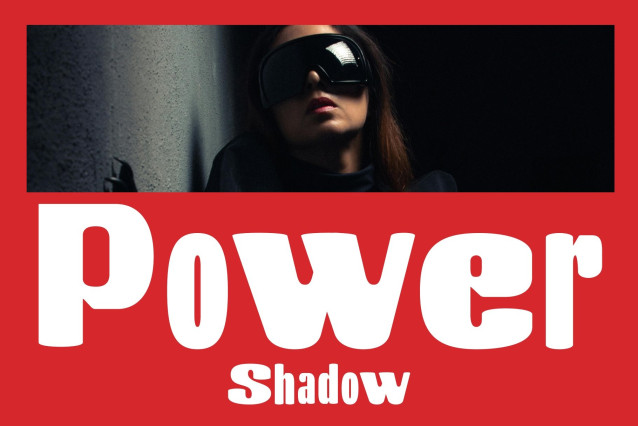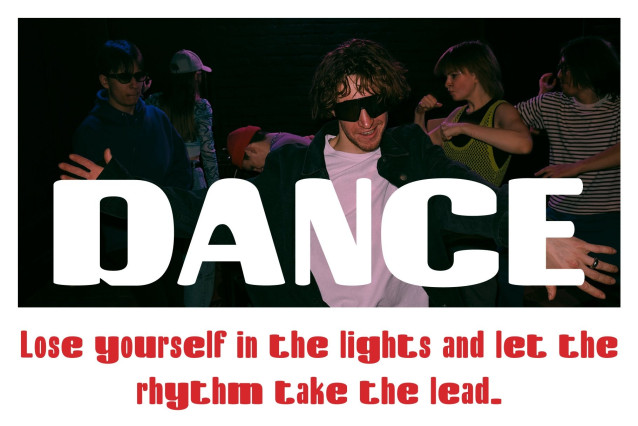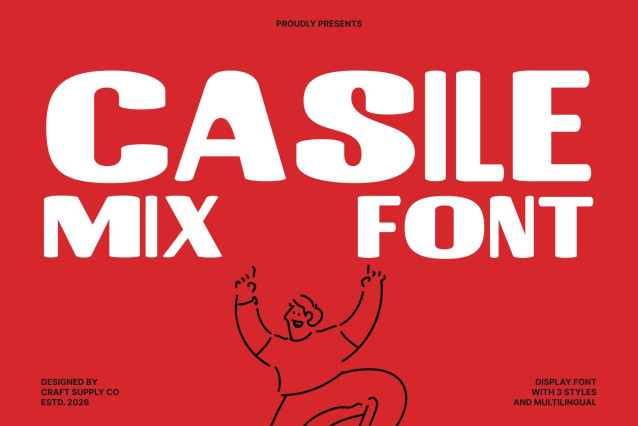
Casile Mix Font
Casile Mix – Bold Retro Sans Serif: Vintage Energy with Modern Expression
Retro Bold Sans with Mixed Style Character
This is a bold sans serif font that revives retro typography with a contemporary mixed-style approach. Built with thick strokes and confident shapes, this typeface captures the vibrant spirit of vintage design while keeping a modern and polished appearance. It delivers a striking visual voice that instantly energizes any composition.
A Hybrid Blend of Bold and Regular Letterforms
The defining feature of this font is its creative fusion of bold and regular characters. This hybrid structure introduces contrast, rhythm, and visual movement, transforming simple text into a dynamic design element. The mix of weights gives typography a lively personality, allowing headlines and branding to feel expressive, artistic, and full of character.